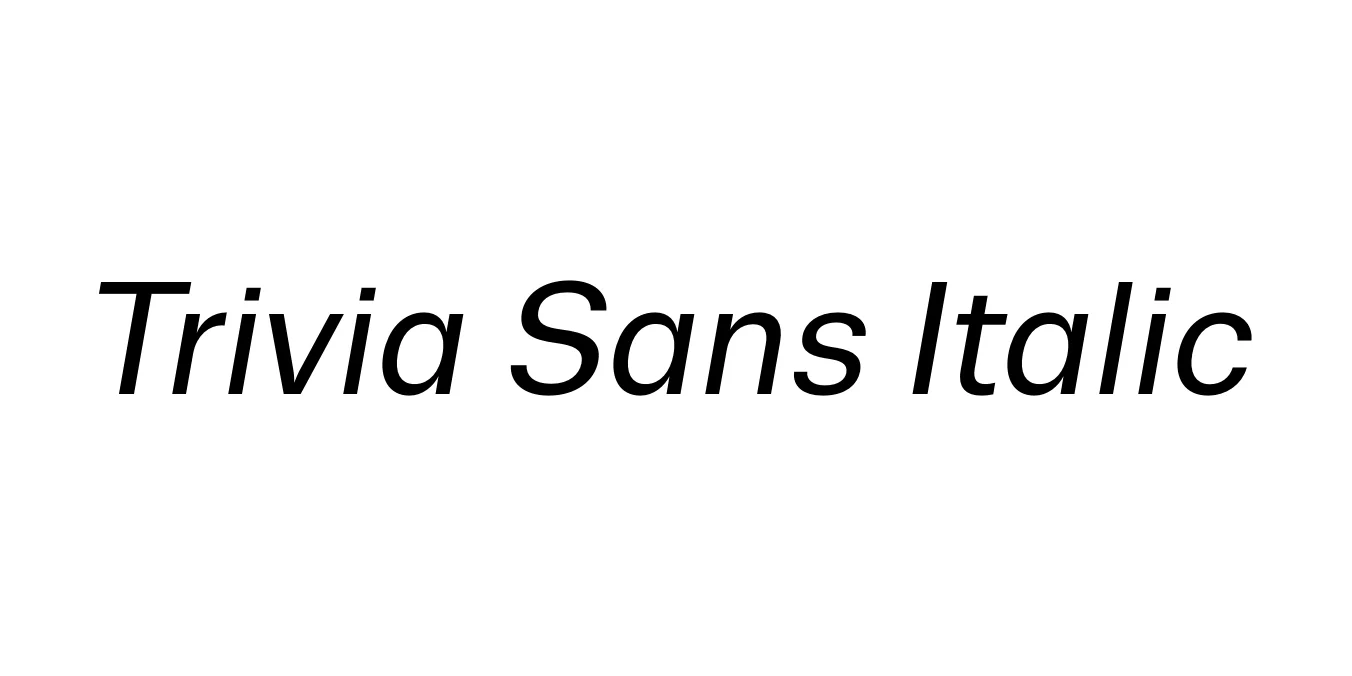
Trivia Sans Italic
Designed by František Štorm
| Category | Humanist Sans Serif |
| Designer | František Štorm |
Trivia Sans Italic is a refined and highly functional typeface designed by František Štorm in 2012 as part of the broader Trivia superfamily. This font was specifically developed to address the complex needs of editorial design, where space efficiency and legibility are paramount. Unlike many geometric sans-serifs, Trivia Sans incorporates humanist characteristics that provide a warm, approachable feel while maintaining a disciplined structure suitable for professional environments.
The Italic variant is a true cursive interpretation rather than a simple oblique, featuring a distinct rhythmic flow that enhances the reading experience. This makes it an exceptional choice for typographic hierarchy, allowing designers to create clear distinctions in body copy, pull-quotes, and captions. Its design reflects a contemporary aesthetic that bridges the gap between classic craftsmanship and modern digital requirements, making it a versatile tool for both print and screen applications.
Trivia Sans Italic Best Uses
Excellent for newspapers and magazines where high legibility in small text is required.
Ideal for creating a sophisticated and modern identity for professional services.
Perfect for long-form reading on digital screens due to its open counters and clear structure.
Great for captions and subheadings to add a touch of elegance and emphasis.